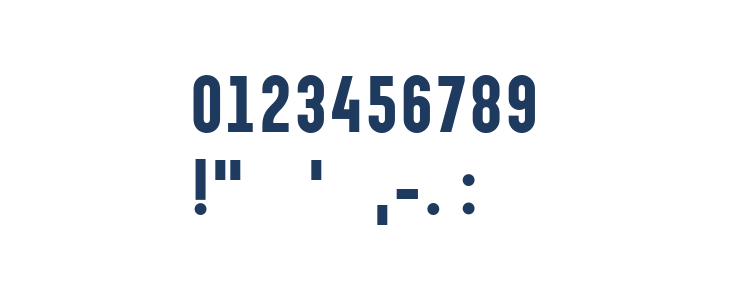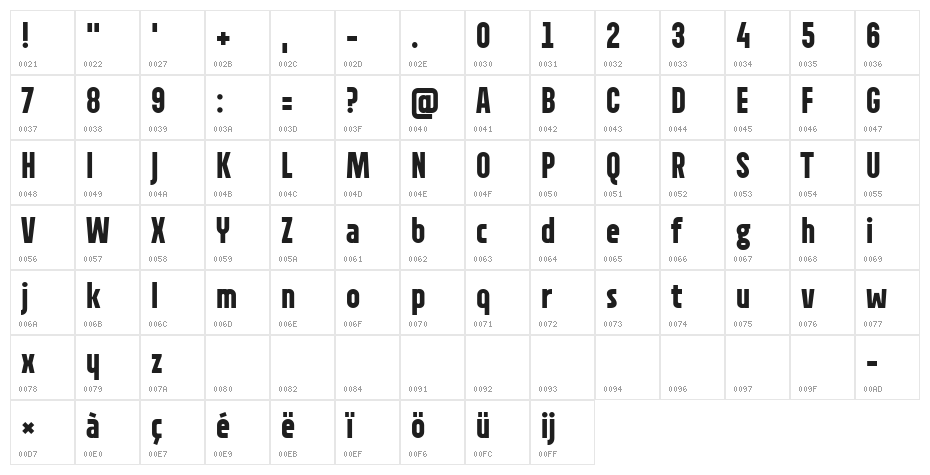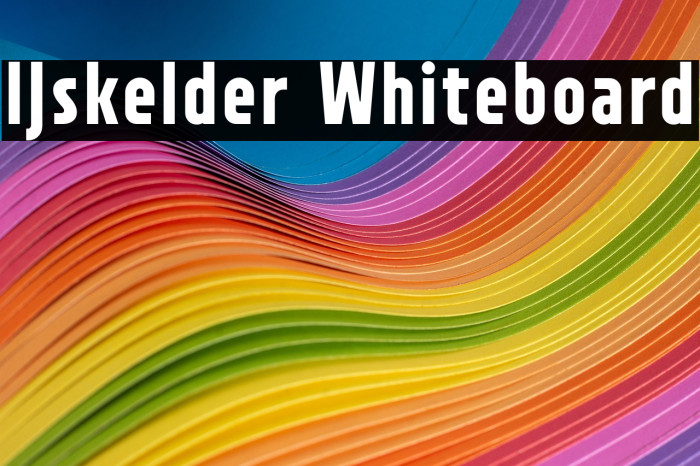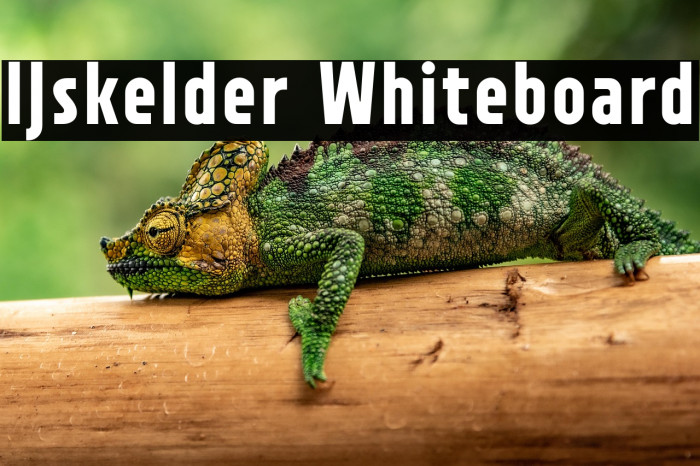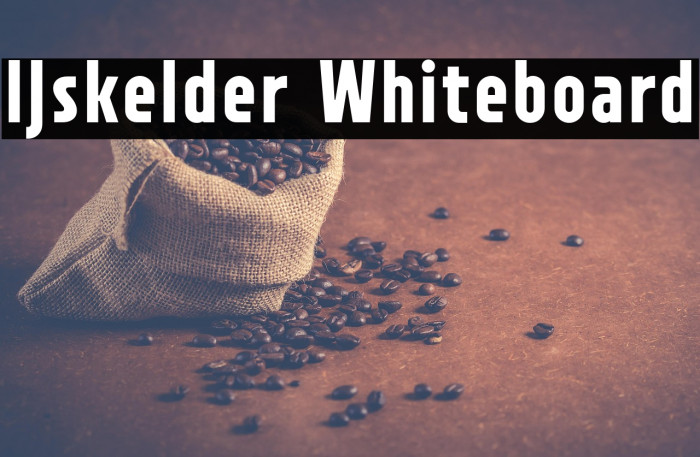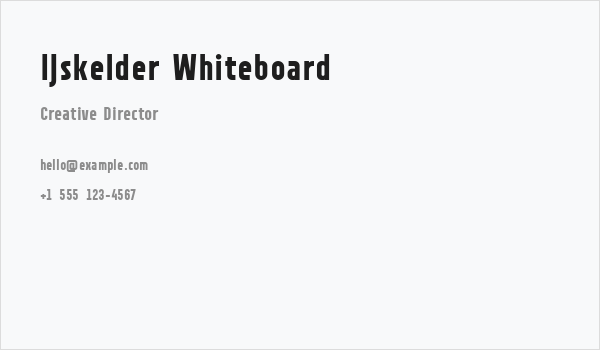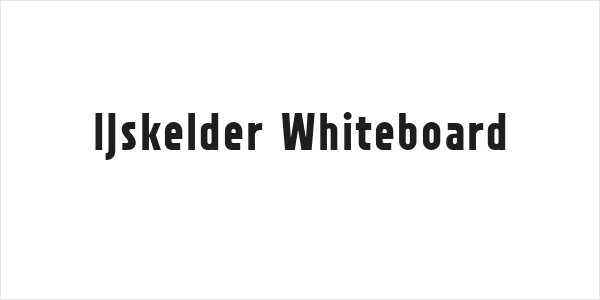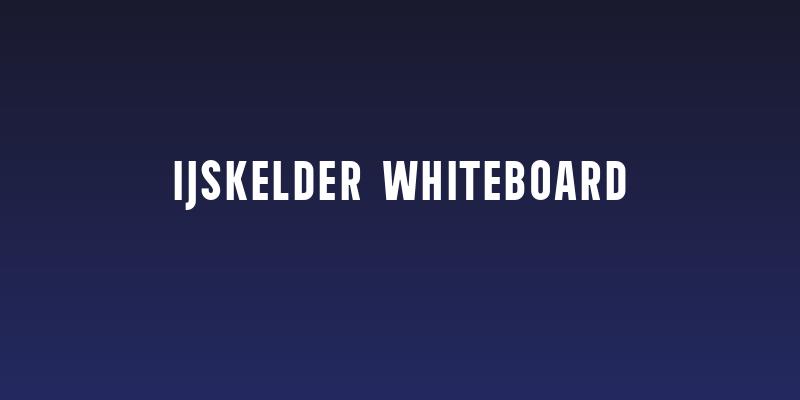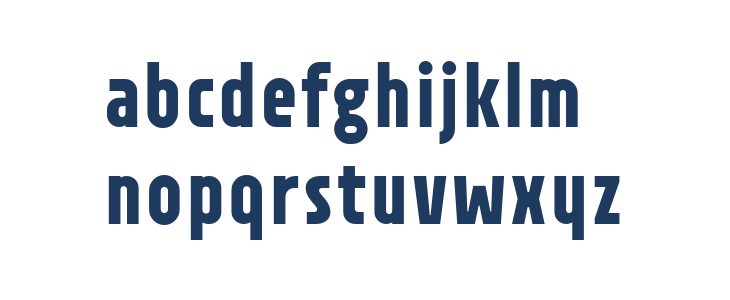
IJskelder Whiteboard Font
IJskelder Whiteboard Description
This font features bold, block-like characters with a strong presence, making it ideal for attention-grabbing designs. The uppercase letters are tall and imposing, while the lowercase letters maintain a consistent weight and style, ensuring readability. The numbers are equally bold, matching the overall aesthetic of the alphabet. Special characters are included, maintaining the same boldness and clarity. The font's design is straightforward, with clean lines and minimal embellishment, making it versatile for various applications.